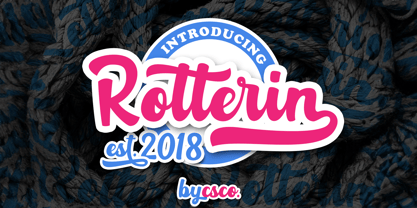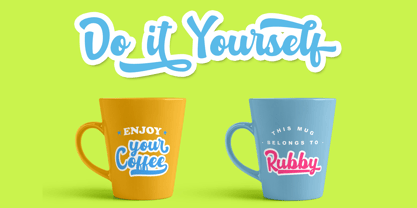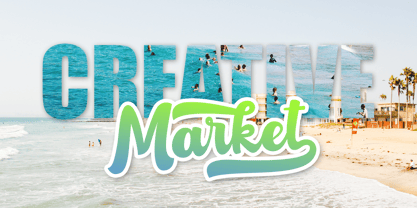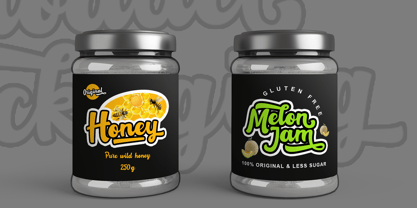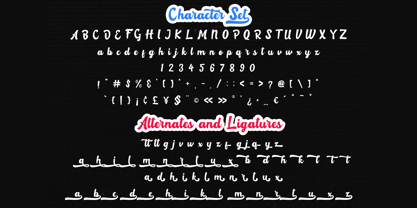
Rotterin
by Craft Supply Co
The Rotterin Font Family was designed by Trio Nazzar Saputra, Wahyu Hadi Yuana and published by Craft Supply Co. Rotterin contains 2 styles and family package options. More about this family
Rotterin is layered script font, Rotterin is suitable for cricut sticker, Logo, greeting cards, quotes, sticker, posters, branding, name card, stationary, design title, blog header, art quote, typography art, modern envelope lettering or book design. Rotterin also suitable for happening style like handdrawn design or watercolor design theme, craft design, any DIY project, book title, wedding font, pop vintage design, or any purpose to make our art/design project look pretty and trendy.